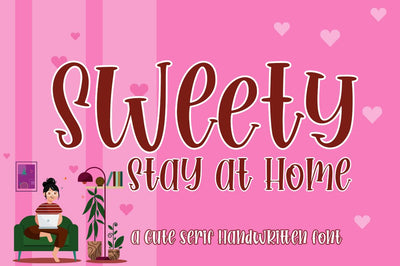
Sweety Stay at Home Cute Serif Handwritten Font
A cute serif quirky font style
- Cute style with average high of uppercase
- Ligatures of the lowercase